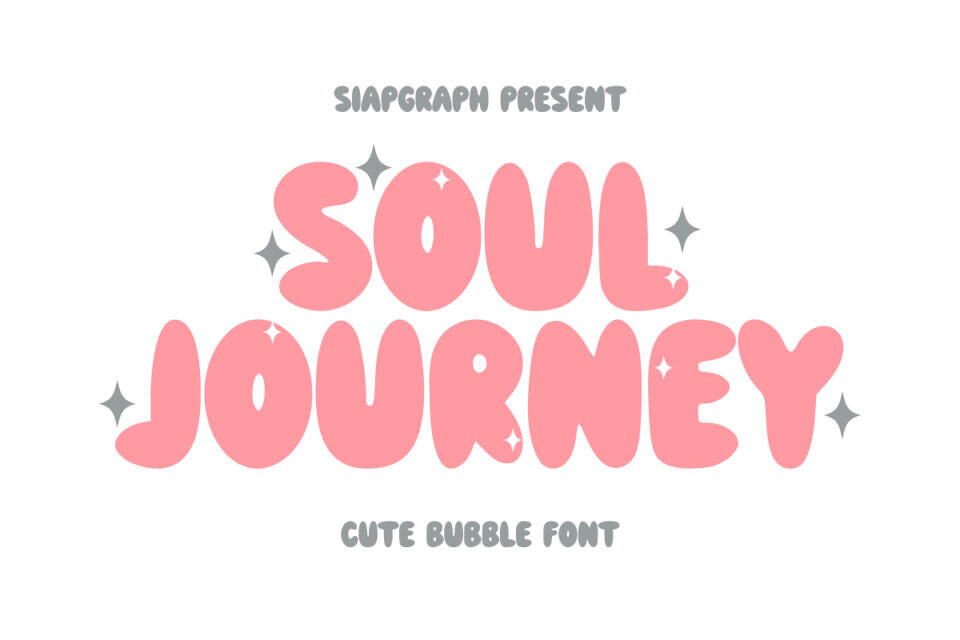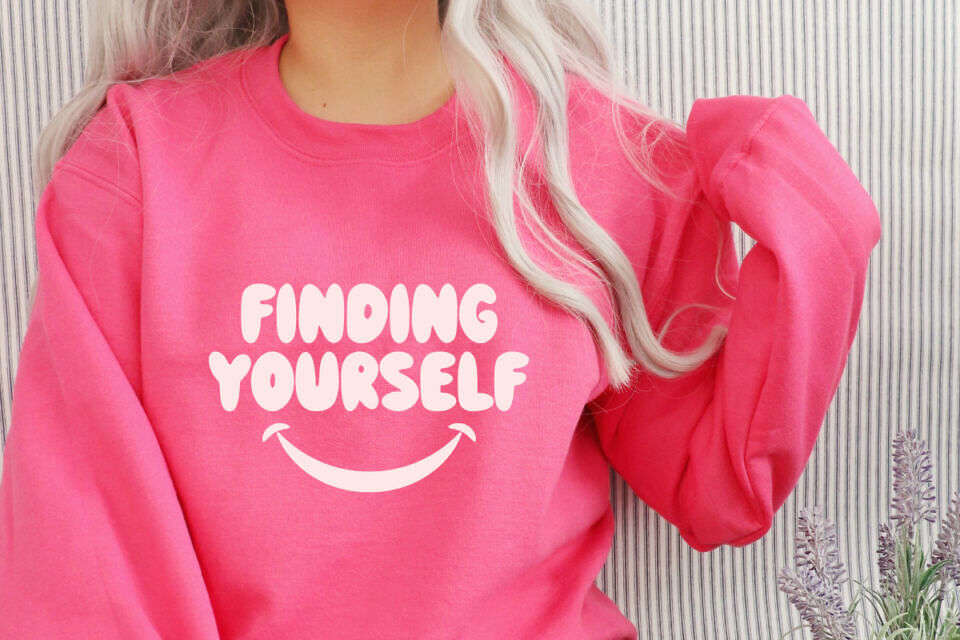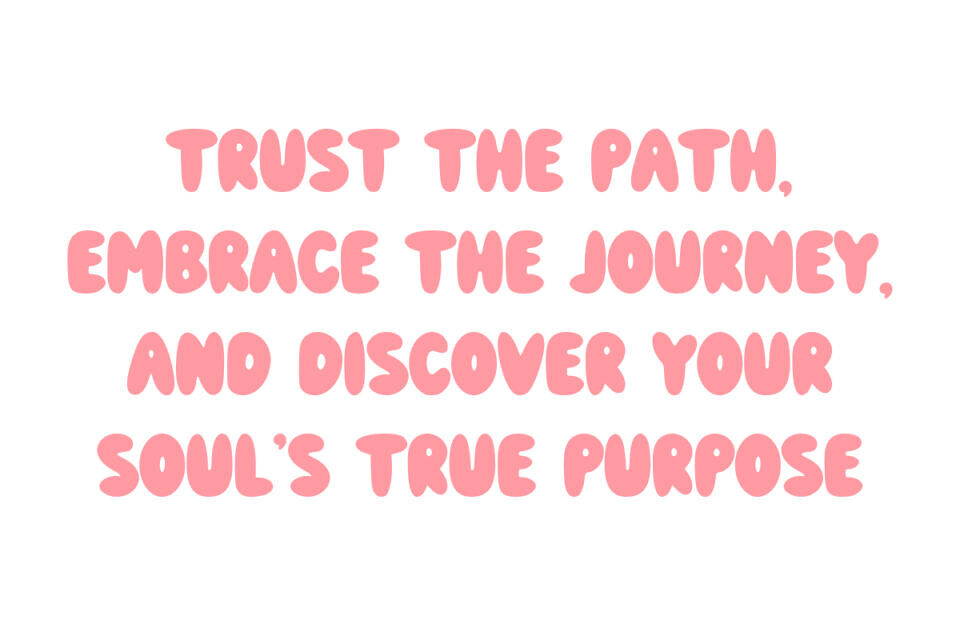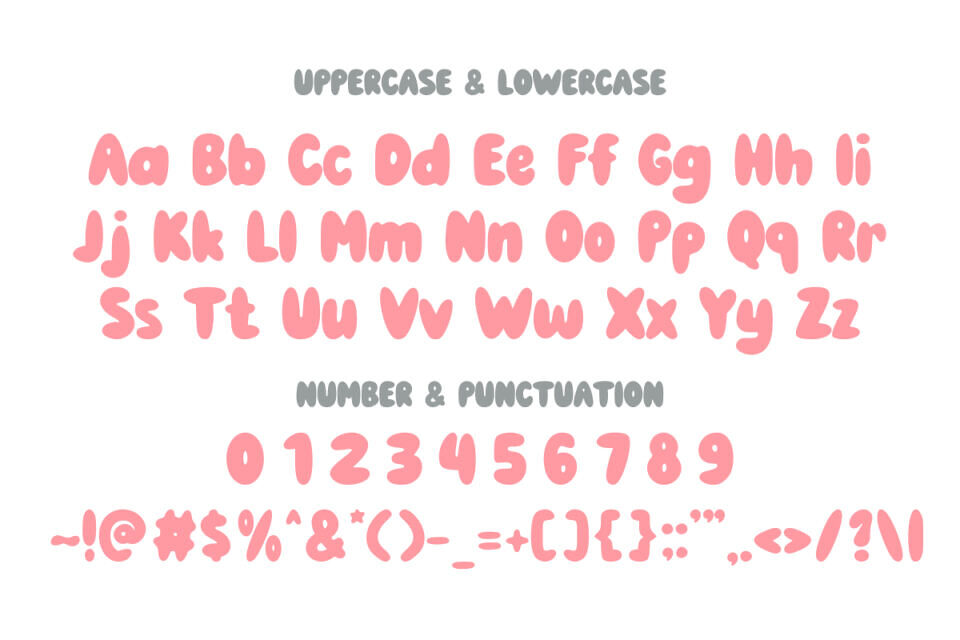
Soul Journey is a modern and bold retro bubble display font, perfect for adding a playful and eye-catching touch to any project.
It works wonderfully for logos, stickers, packaging designs, Cricut projects, headlines, brand identities, apparel designs, posters, magazines, books, YouTube, Instagram, websites, and more.